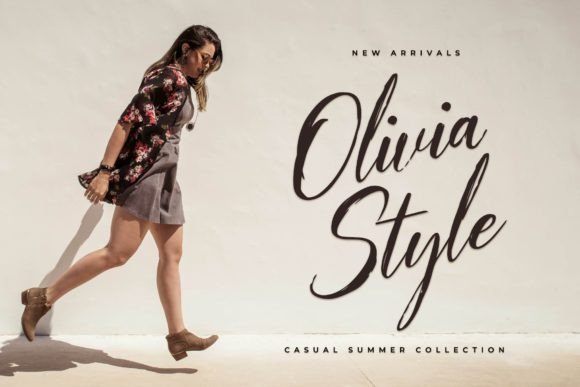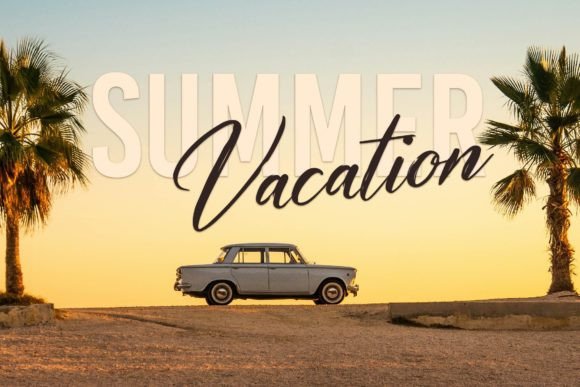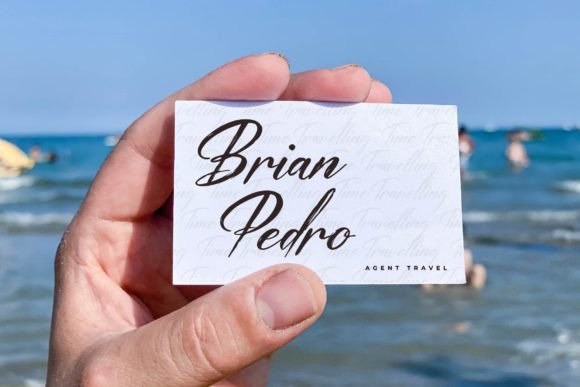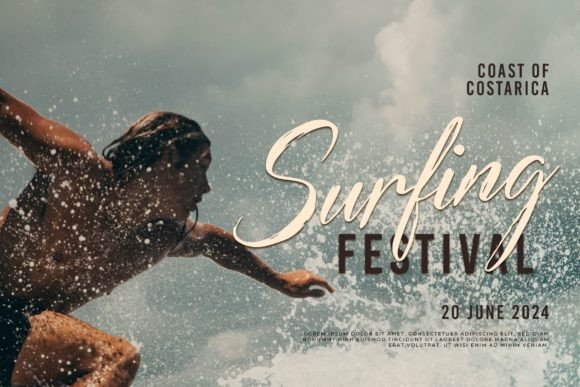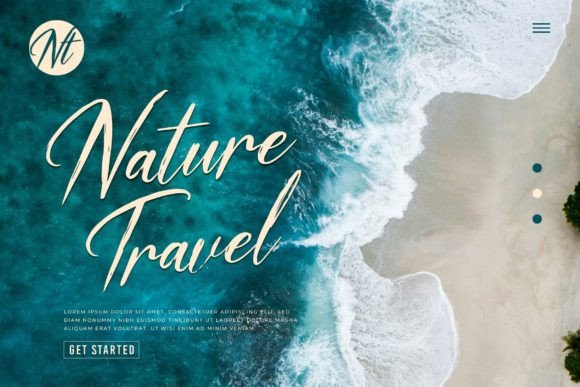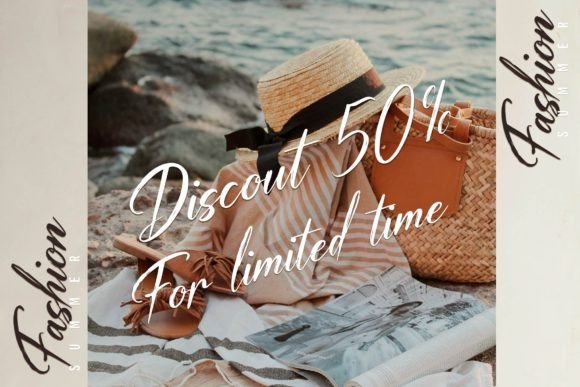
Aestra Jingga Font: Elevate Your Designs with Elegant Handwritten Style
In the world of typography, few fonts capture the essence of natural handwriting as beautifully as Aestra Jingga. This stunning handwritten script font is designed to bring a personal and elegant touch to any project, making it perfect for designers and crafters looking to add a unique flair to their work. With its smooth and flowing letters, Aestra Jingga is an excellent choice for invitations, quotes, branding, and any other project that requires a stylish, handwritten feel.
The Beauty of Handwritten Typography
Handwritten fonts have a way of connecting with audiences on a personal level, evoking emotions and adding a touch of warmth to any design. Aestra Jingga takes this concept to the next level with its exquisite, hand-crafted letters that mimic the natural flow of handwriting. Each letterform is carefully designed to convey a sense of elegance and sophistication, making it ideal for projects that require a high level of refinement.
Key Features of Aestra Jingga Font
- Smooth and flowing letters: Aestra Jingga’s letters are designed to flow seamlessly into one another, creating a beautiful, connected script that looks like natural handwriting.
- Elegant and personal touch: The font’s handwritten style adds a personal and elegant touch to any project, making it perfect for invitations, quotes, and other applications where a unique and sophisticated look is desired.
- Highly versatile: Aestra Jingga can be used for a wide range of projects, from digital designs to print materials, and is suitable for various industries, including fashion, beauty, and lifestyle.
- Easy to read: Despite its elegant and cursive nature, Aestra Jingga is highly legible, making it an excellent choice for body text and longer content.
Uses of Aestra Jingga Font
Aestra Jingga’s versatility and elegance make it an excellent choice for various design applications, including:
- Invitations and event branding: Add a touch of sophistication and elegance to your event invitations, wedding stationery, or party decorations.
- Quotes and typography art: Use Aestra Jingga to create stunning typography art, inspirational quotes, or social media graphics that showcase your message in a beautiful and stylish way.
- Branding and packaging: Elevate your brand’s visual identity with Aestra Jingga’s elegant and refined style, perfect for luxury brands, fashion labels, or beauty products.
- Digital designs: Use Aestra Jingga in your digital designs, such as website headers, email newsletters, or social media graphics, to add a personal and creative touch.
Tips for Using Aestra Jingga Font
To get the most out of Aestra Jingga, here are some tips to keep in mind:
- Pair with contrasting fonts: Combine Aestra Jingga with contrasting fonts, such as bold sans-serifs or simple serif fonts, to create visual interest and hierarchy.
- Experiment with colors: Aestra Jingga looks stunning in a variety of colors, from soft pastels to rich jewel tones. Experiment with different colors to find the perfect match for your design.
- Pay attention to spacing: To maintain the font’s elegance and readability, ensure that you leave sufficient spacing between lines and words.
Aestra Jingga is a beautiful and elegant handwritten script font that can elevate your designs to the next level. With its smooth and flowing letters, personal and elegant touch, and high versatility, this font is perfect for designers and crafters looking to add a unique and sophisticated flair to their work. Whether you’re creating invitations, quotes, or branding materials, Aestra Jingga is an excellent choice for any project that requires a stylish, handwritten feel.